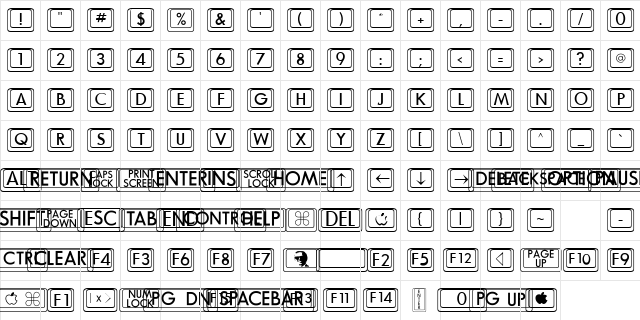
DavysBigKeyCaps Regular Font Preview
DavysBigKeyCaps Regular
Design Context for DavysBigKeyCaps Typeface
DavysBigKeyCaps is a composed and adaptable typeface that performs quietly and consistently across a wide range of design contexts.